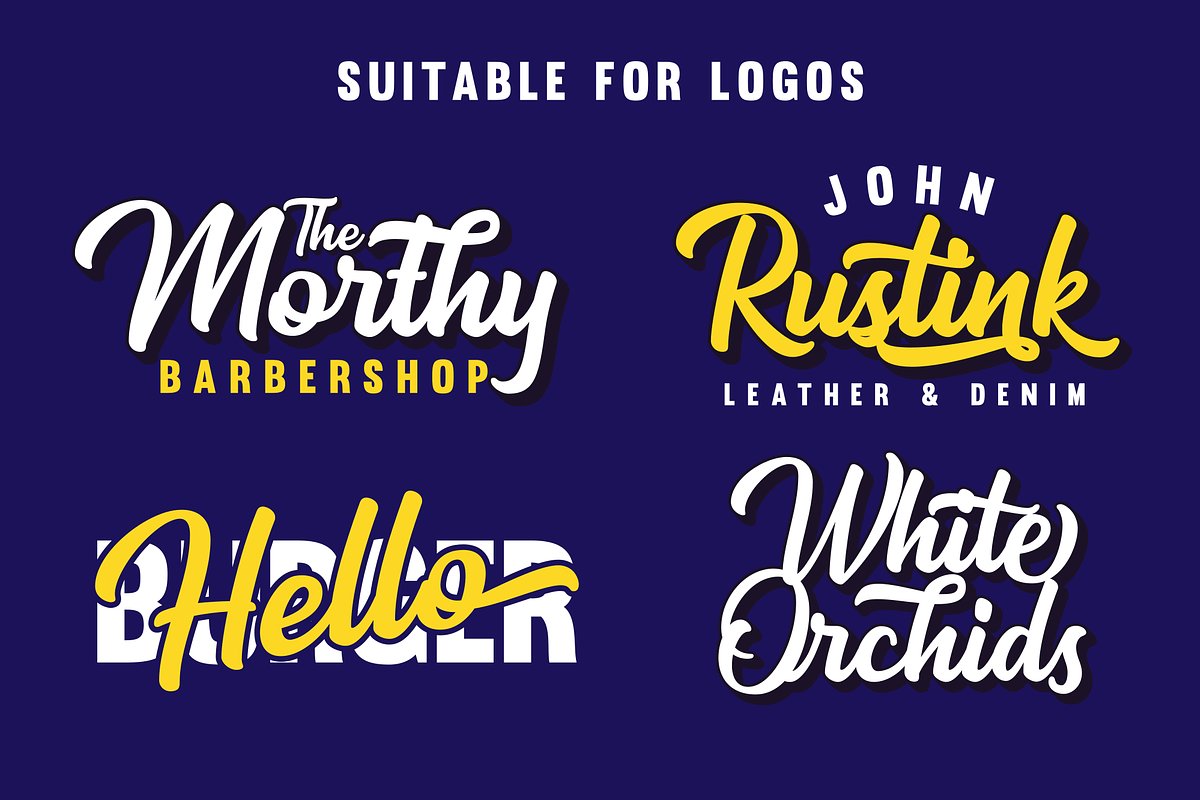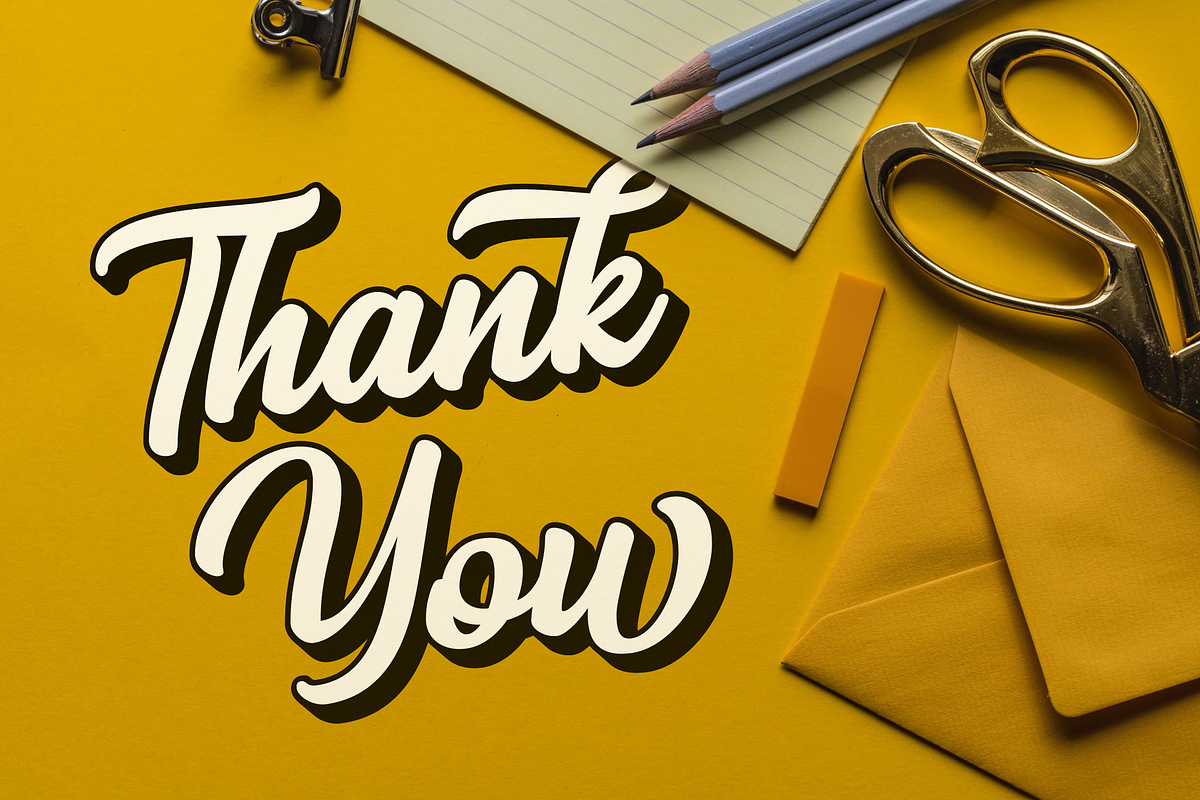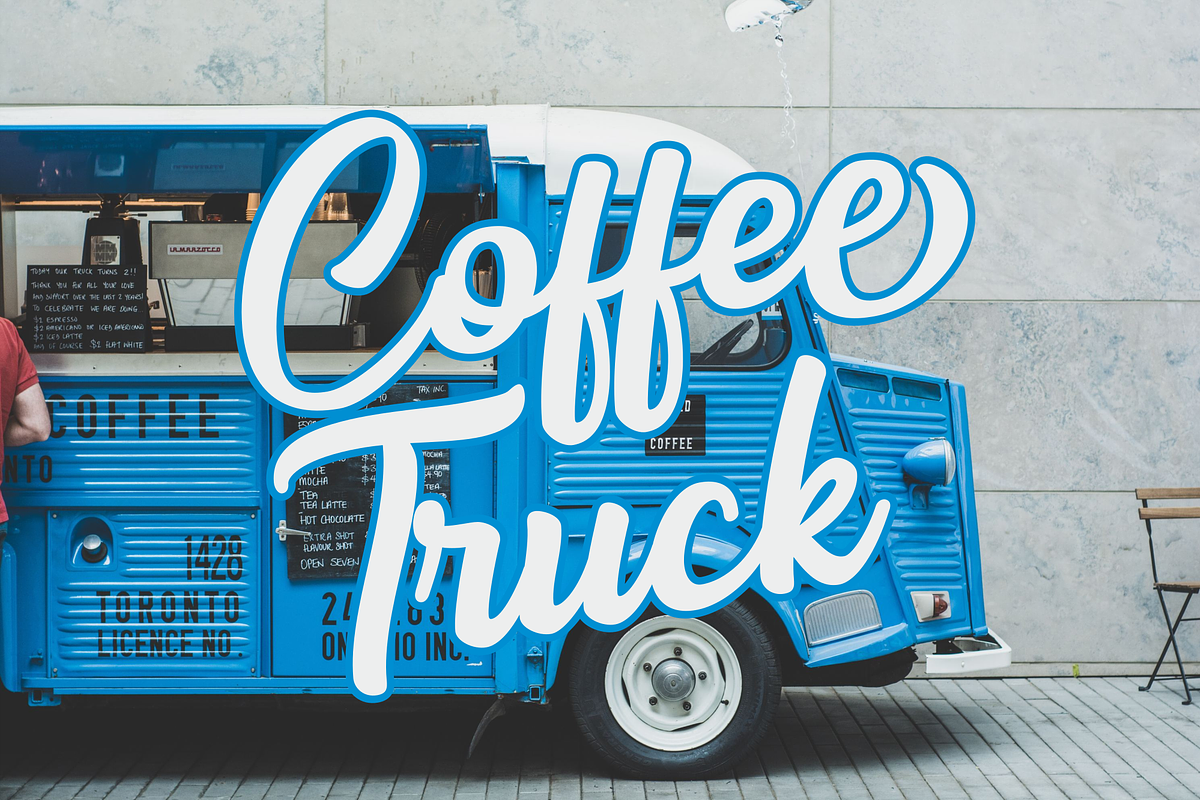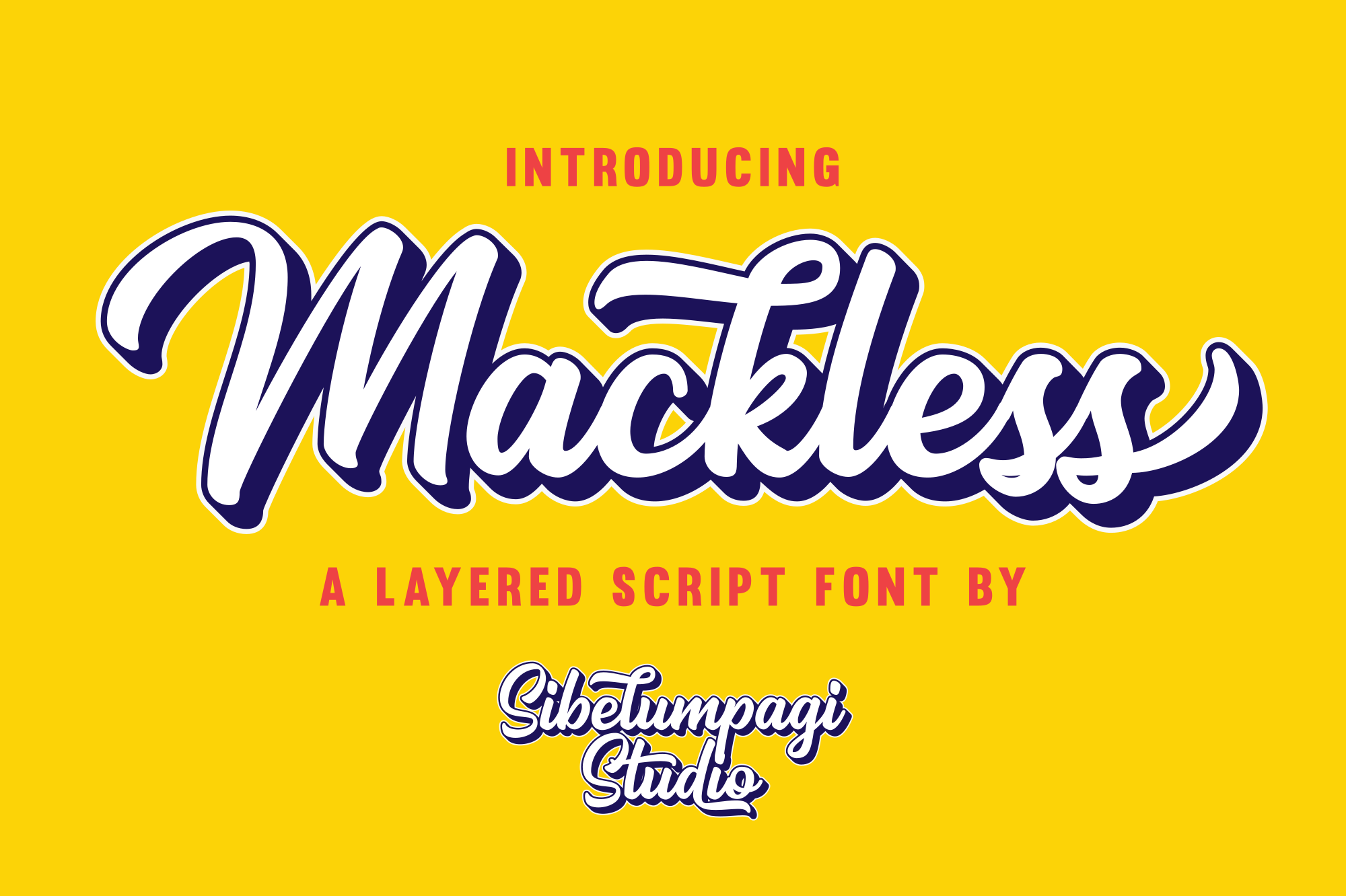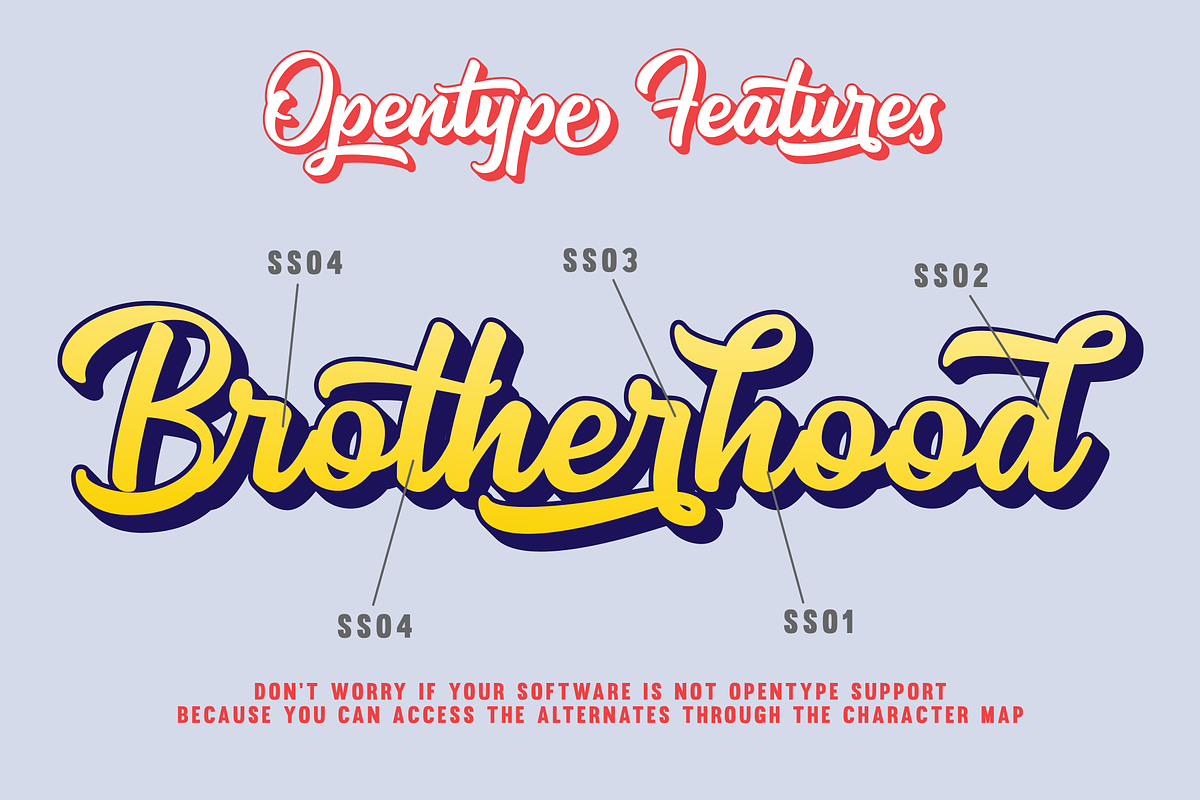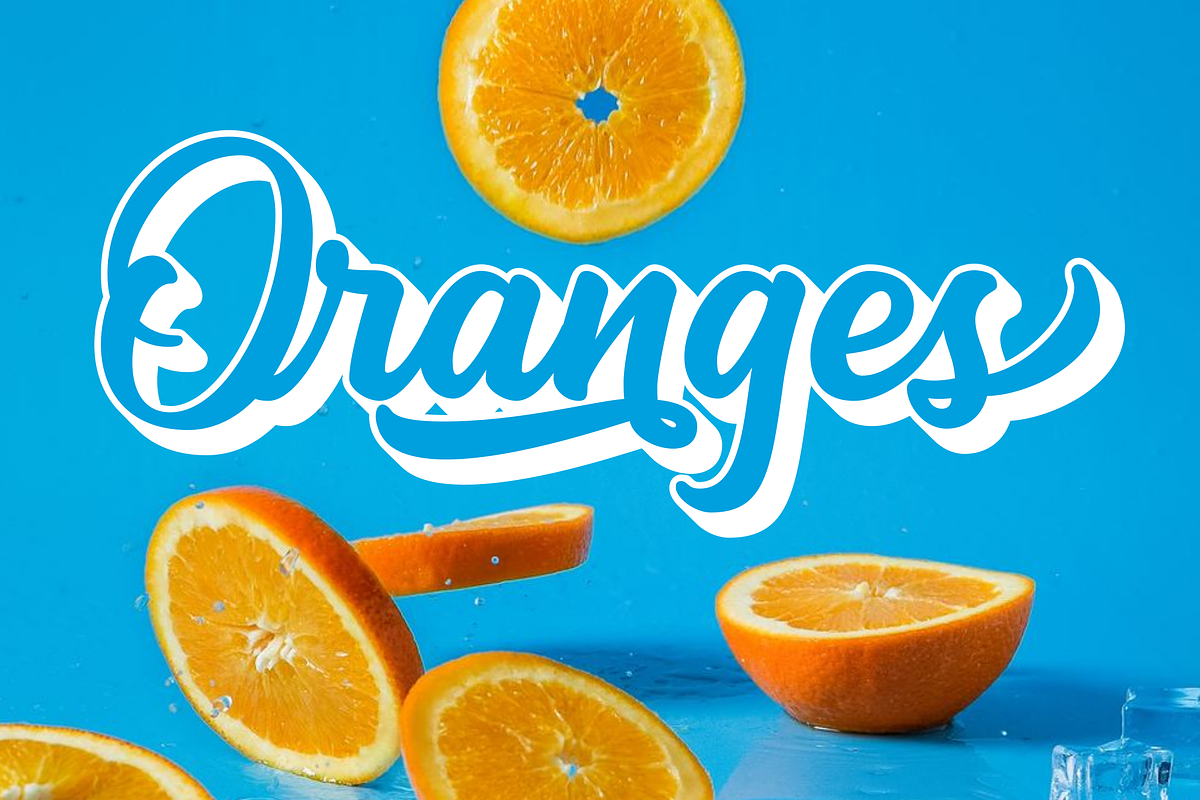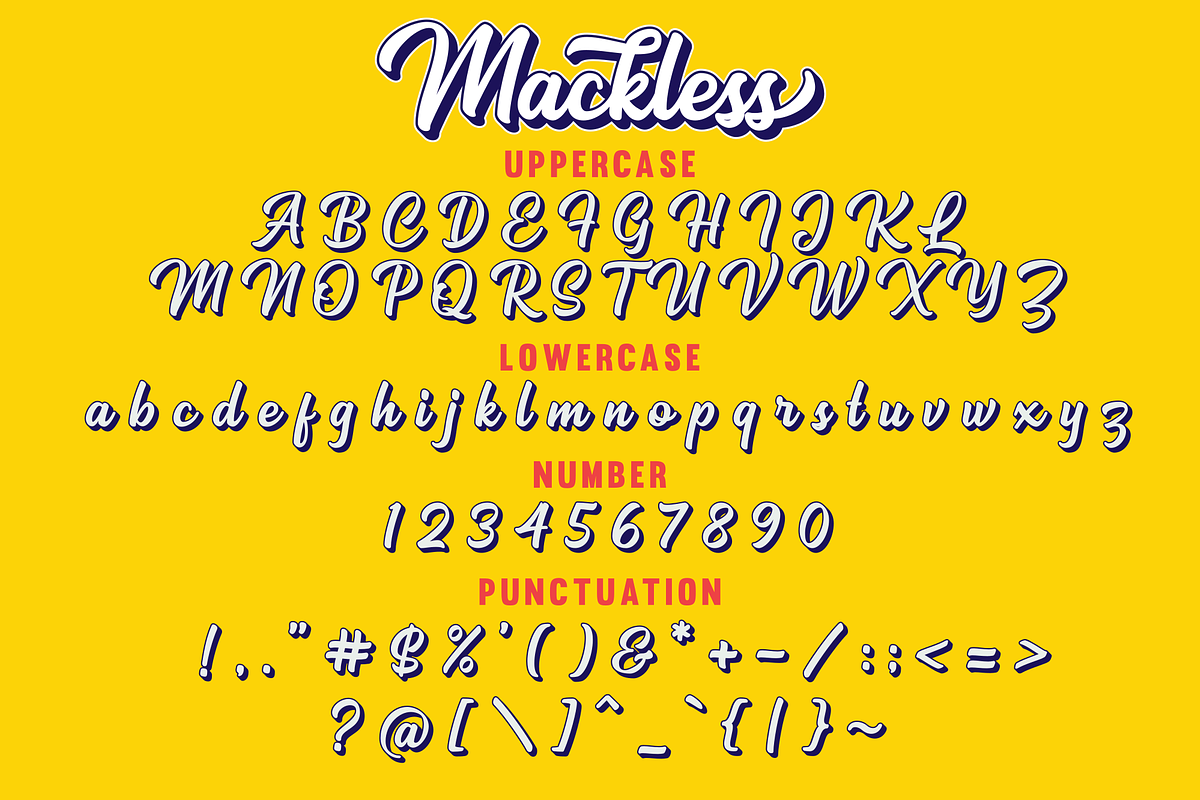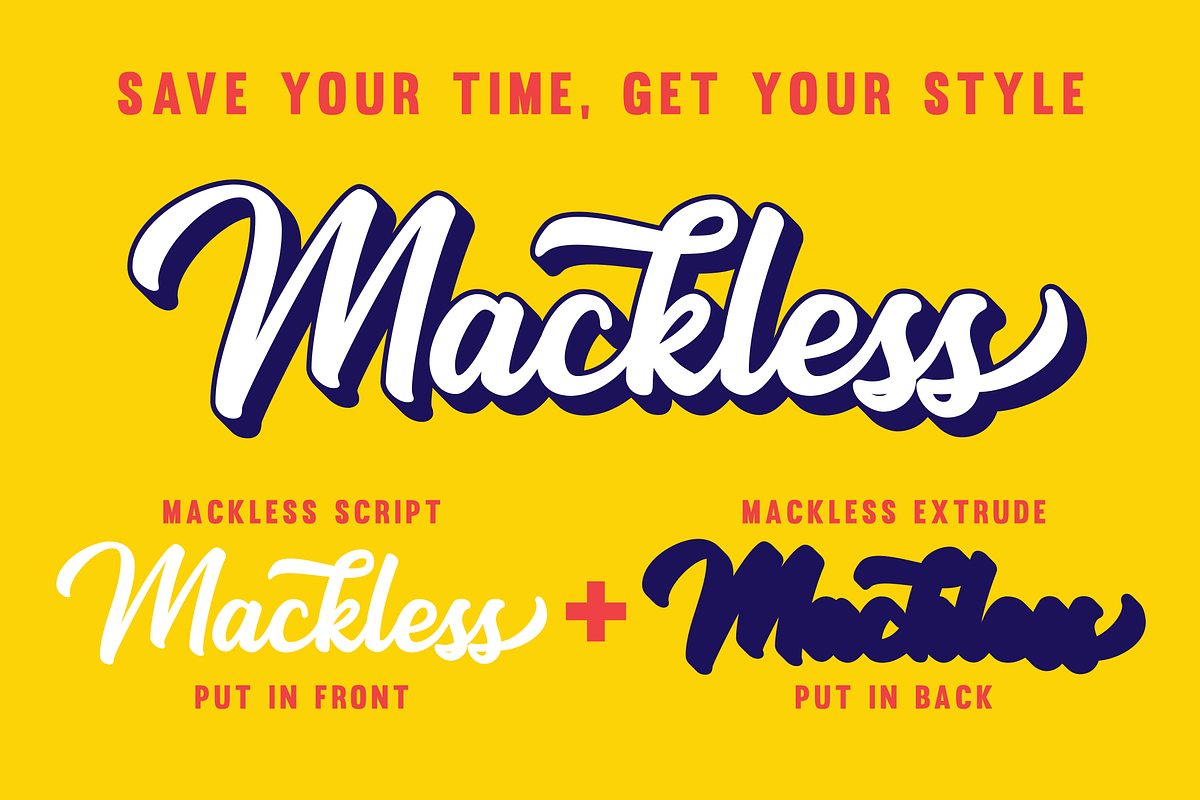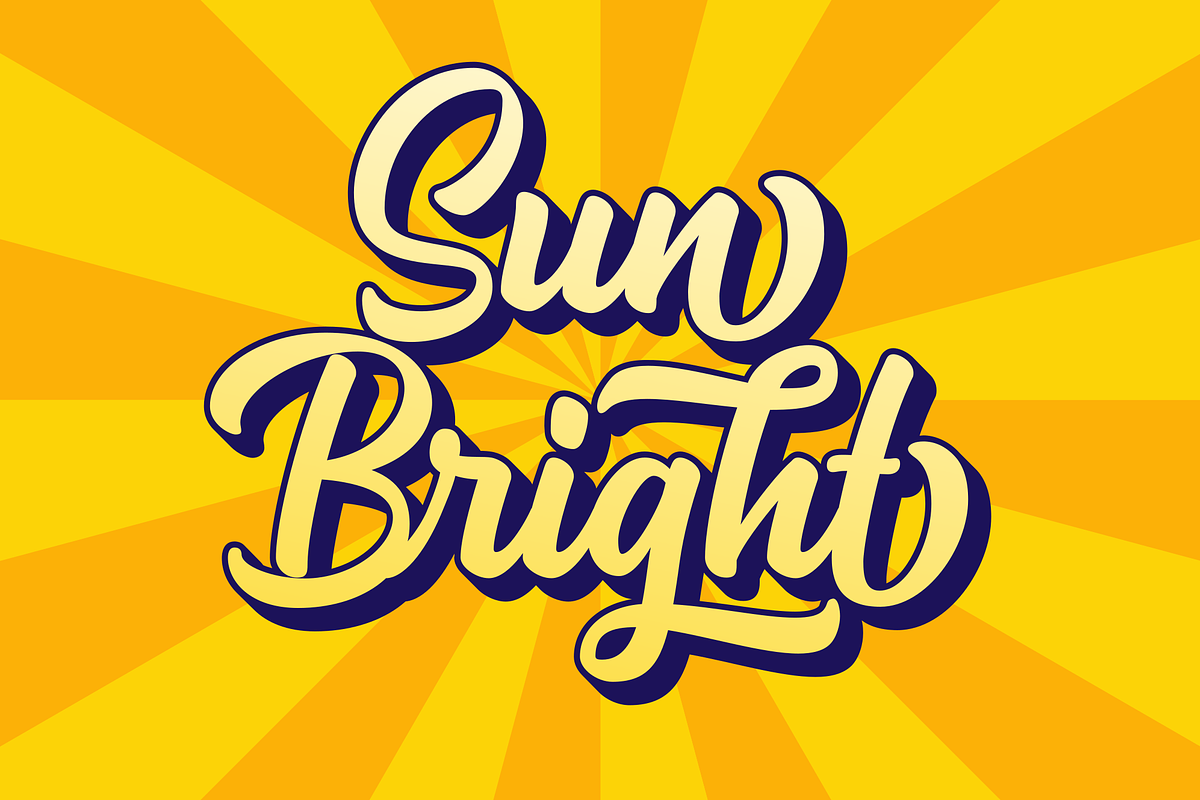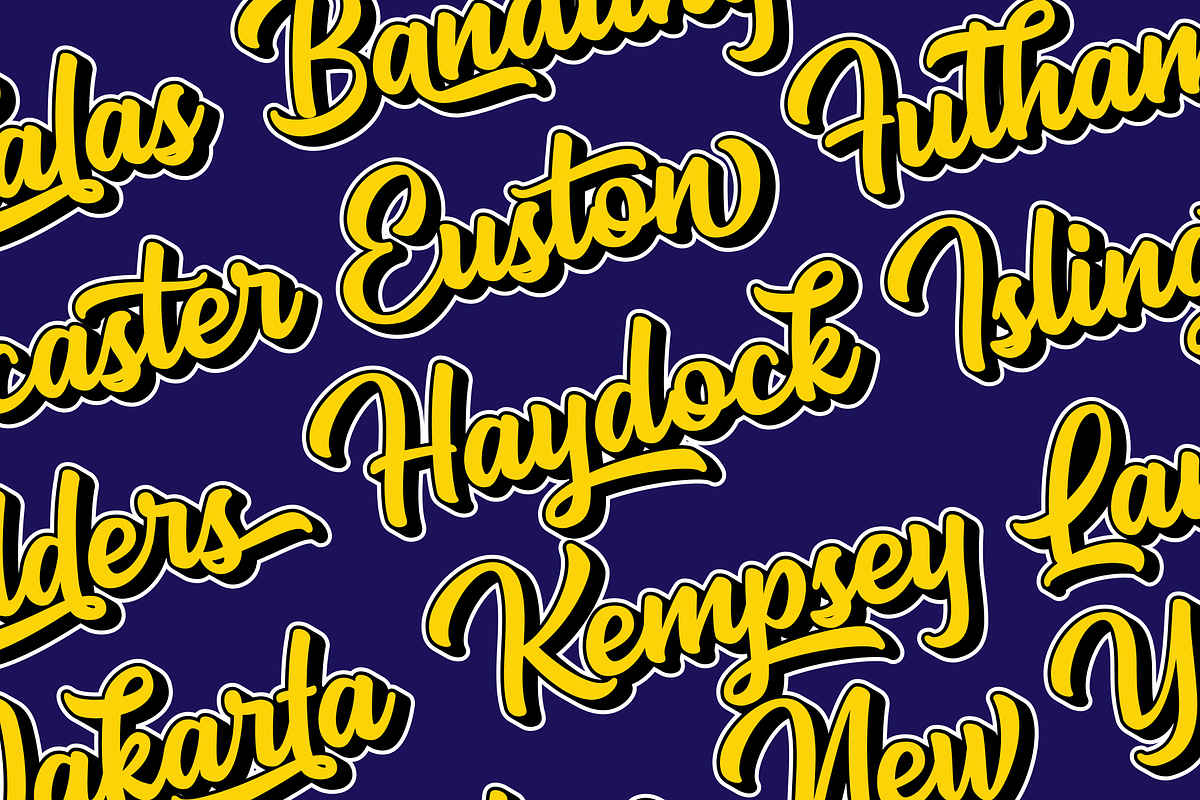
Mackless - Layered Font
Mackless is a clean script font inspired by handlettering, bold script, brush script, and logotype. Mackless came with extra extruded font for a good combination on your design need, also It included opentype features with PUA encoded such as altrnates and ligatures.
Mackless font would be good for branding, logotype, poster, badge, book cover, invitation, tshirt design, packaging and many more.